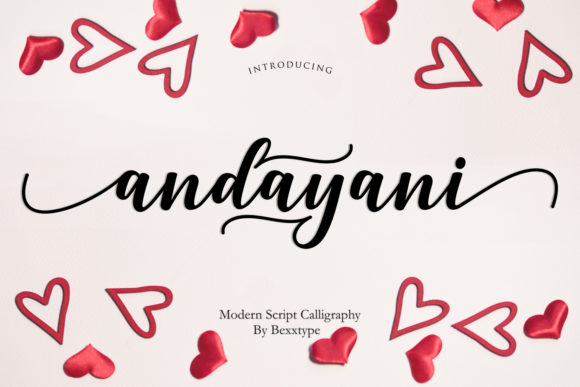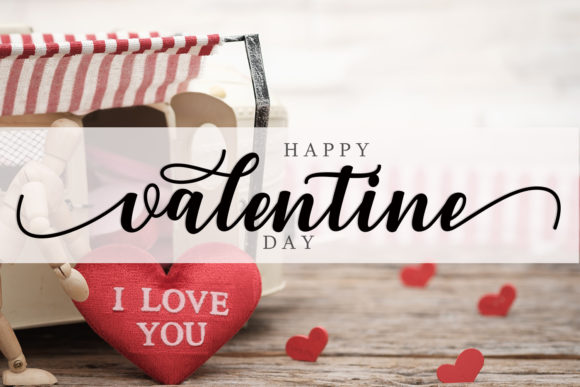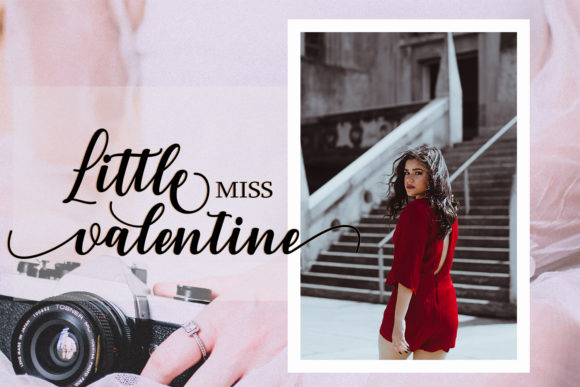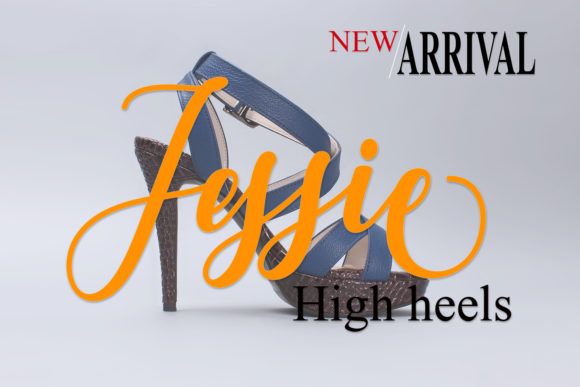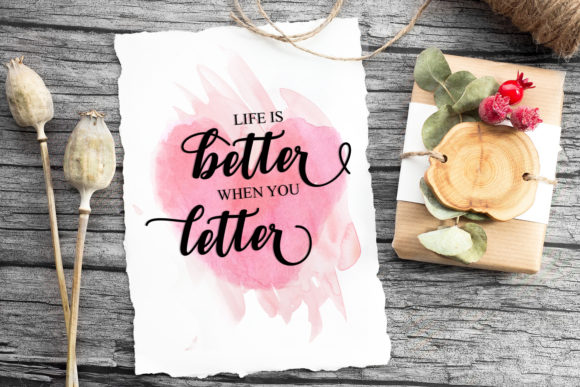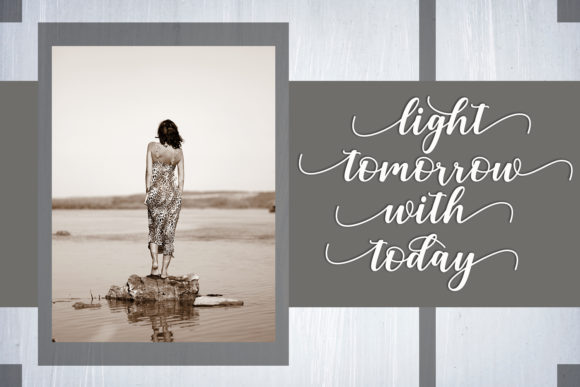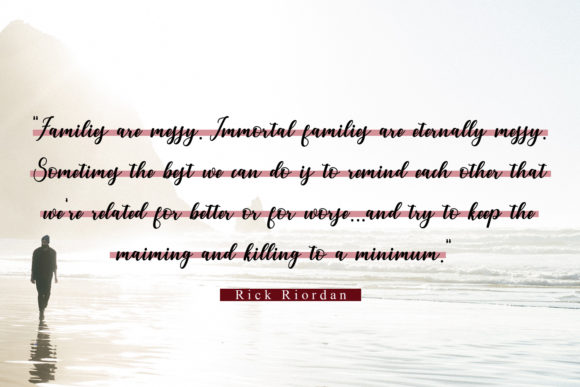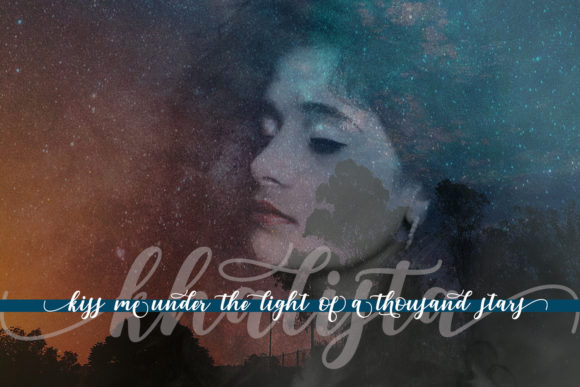
Andayani Script Font
About Andayani Script Font
Andayani Script is a unique & modern script featuring flowing characters. This font will make your text stand out from the crowd!